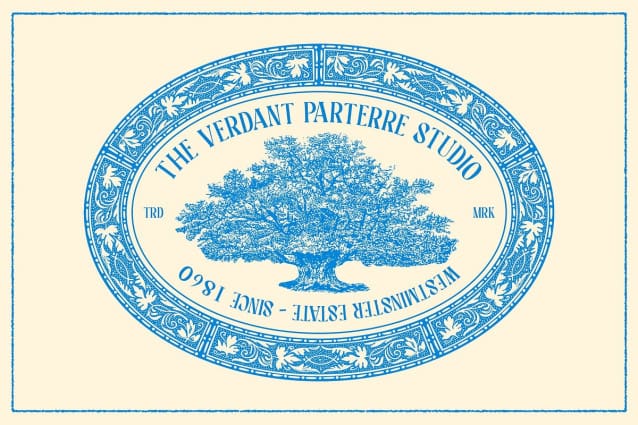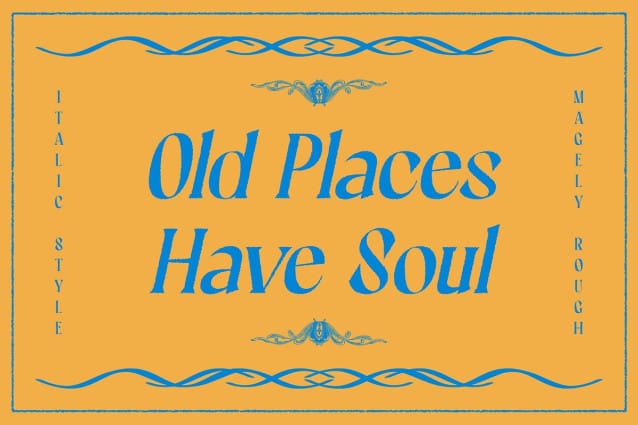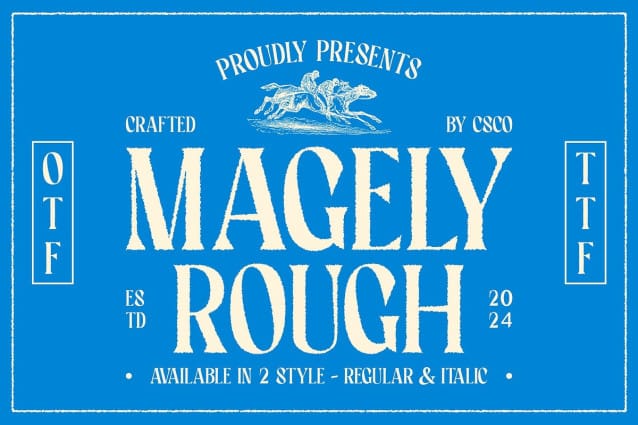
Magely Rough Font
Magely Rough Font is a serif font that masterfully combines classic elegance with a retro charm, enhanced by a rugged rough effect. The traditional serif shapes add a touch of luxury and refinement, while the vintage-inspired design evokes a nostalgic and timeless feel. The rough effect introduces a unique texture, creating a bold and expressive character that sets the font apart.
Ideal for Premium and Artistic Designs With its blend of classic sophistication and modern texture, Magely Rough is perfect for designs that seek to make a statement with a unique and artistic flair. The font’s elegant serif structure brings a sense of tradition and high-end appeal, while the rough effect adds a contemporary edge. This combination makes it ideal for premium branding, eye-catching promotional materials, and distinctive editorial design.
Versatile and Impactful Magely Rough offers a versatile design that balances classic style with a modern twist. The retro elegance paired with the rugged texture provides a striking visual impact, making it an excellent choice for projects that require both a refined and dynamic appearance. Whether used for sophisticated branding, engaging marketing materials, or stylish editorial layouts, Magely Rough ensures a memorable and impactful presence.